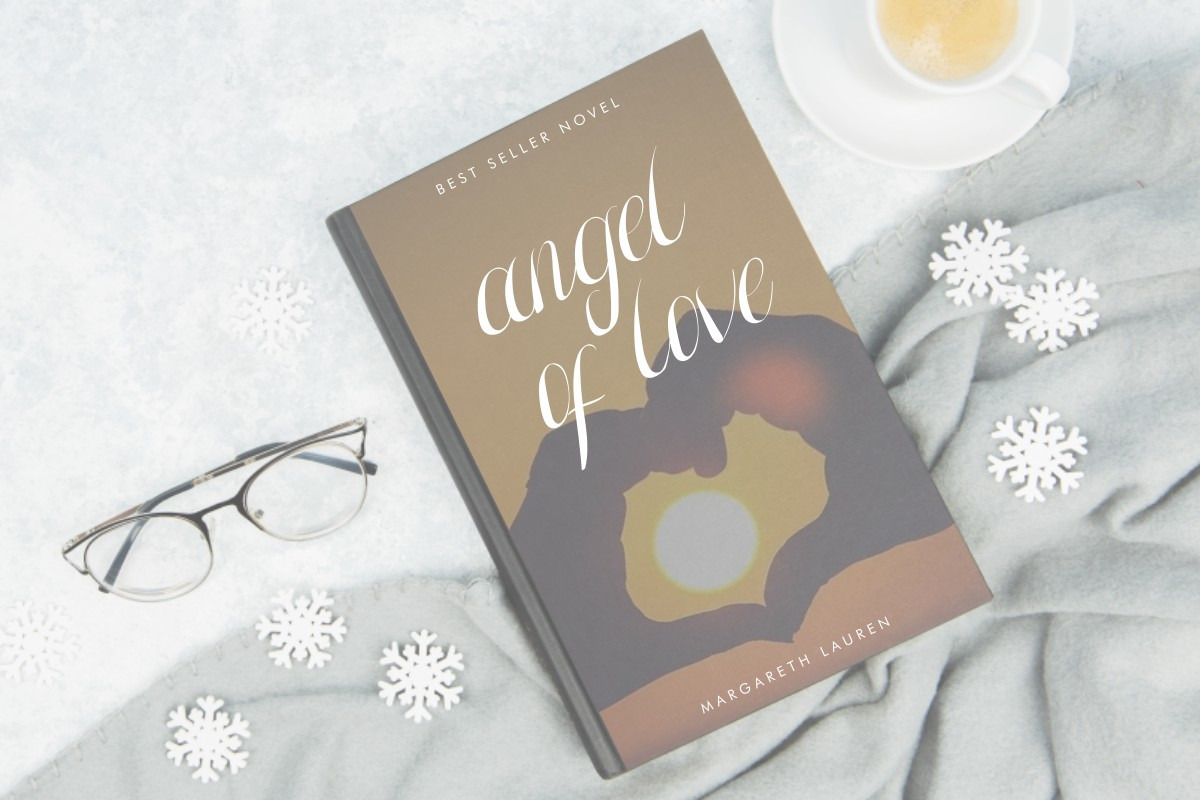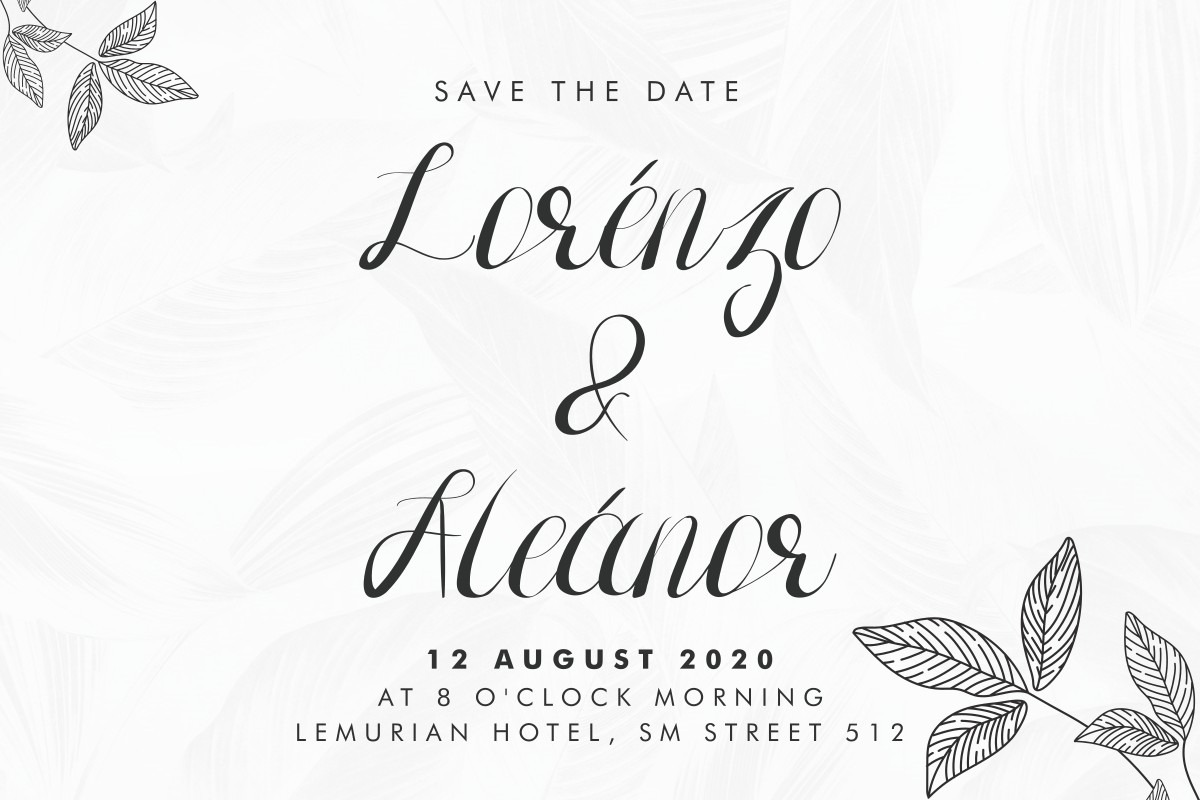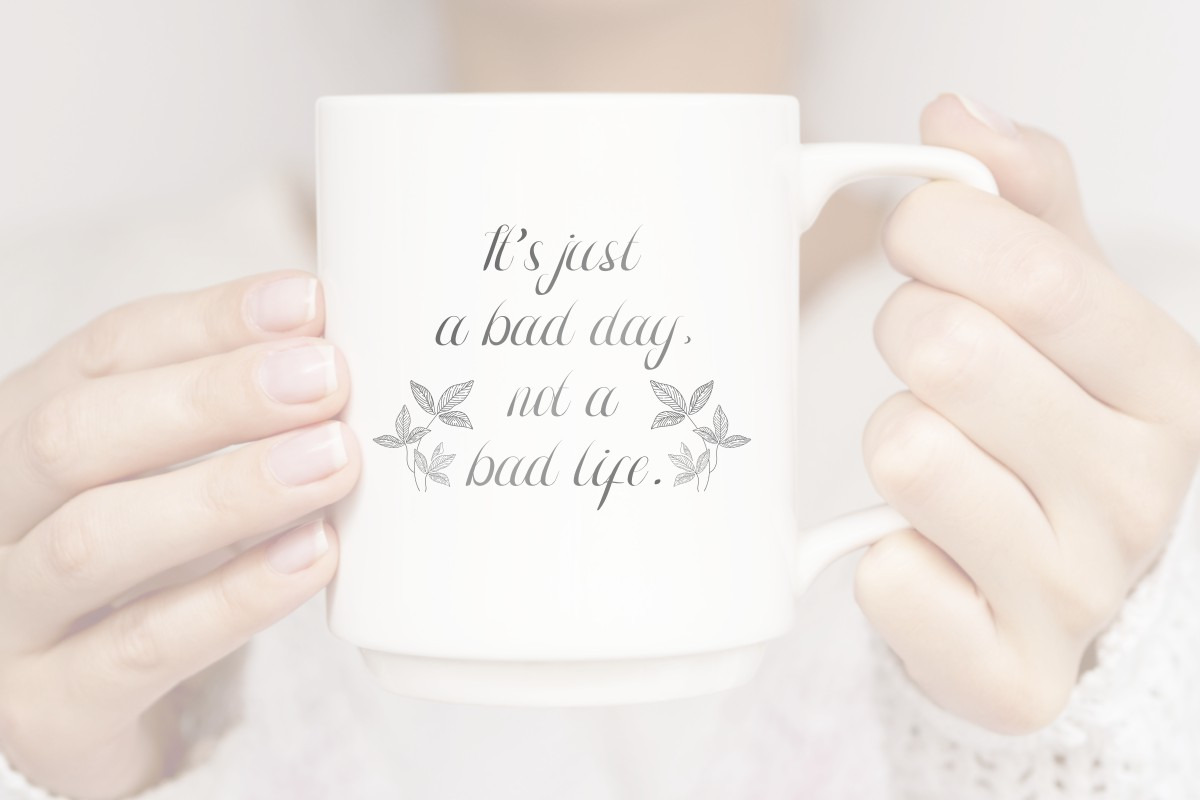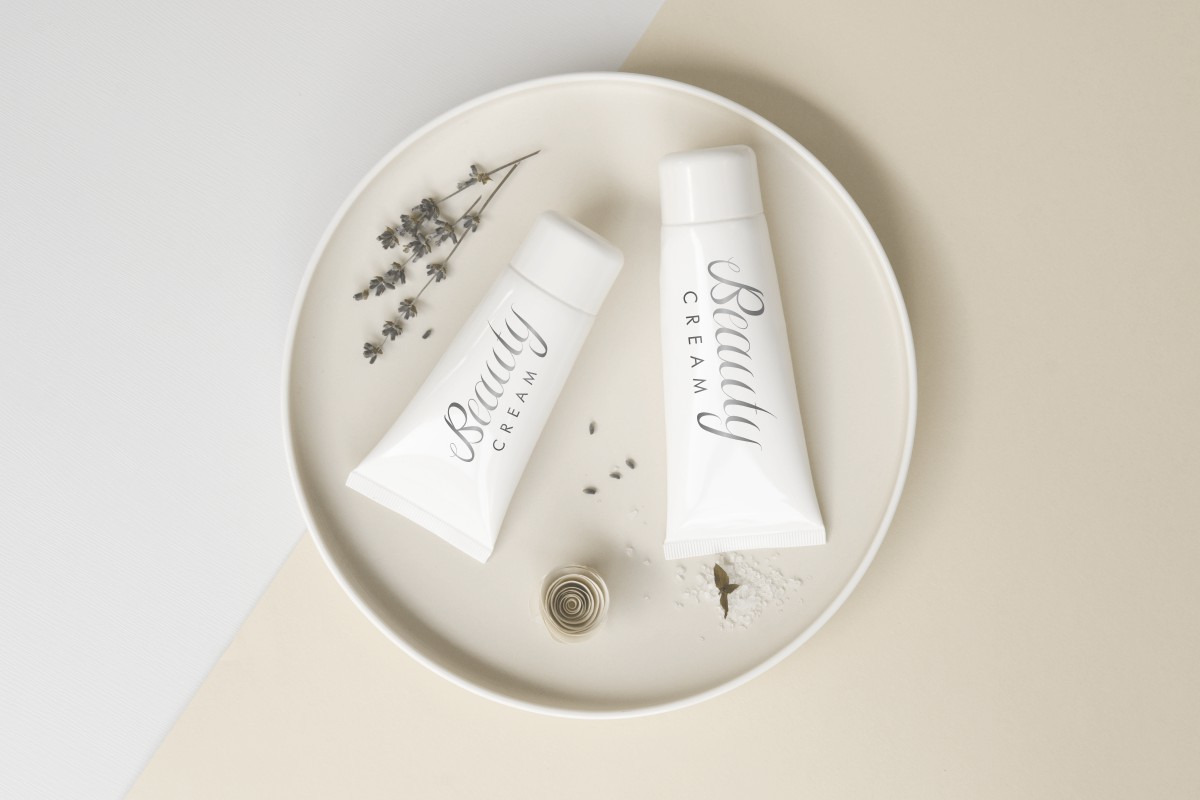
Photogenics Luxury Font
This is a calligraphy handwriting font, handcrafted from our Studio here in Garut and Bandung, Indonesia. The artists/designers of this beautiful tyeface is Widiyanti and Sarah .
Photogenics Luxury Font is an exclusive hand lettering script typeface with brush style. This font has a stunning characters set, perfectly managed with well spaced and kerning. The theme style of this font will be glamour, gold, elegant, vintage, stylish, sophisticated and natural brush pen handwriting style.
Photogenics Luxury Font will be great for any projects including : branding, logo, stationery, business card, signage, flyer, brochure etc. Almost all industries will be match for this typeface: wedding, events, real estate, architect, law firm, florist, gardening, makeup artist, travel, hotel, musician etc